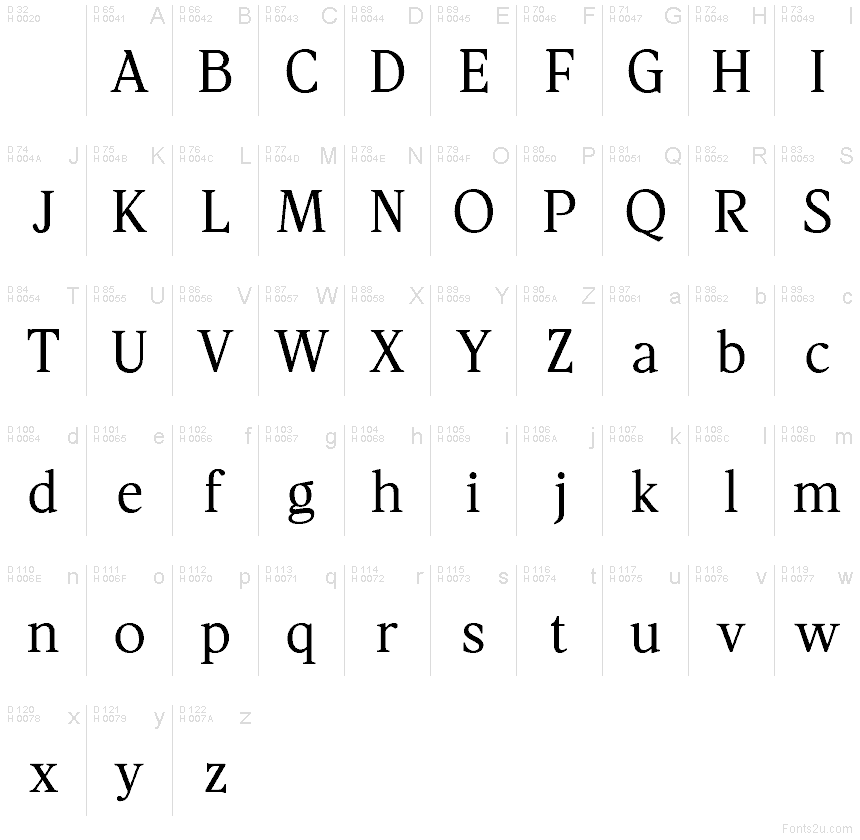
CS Majora Regular Demo
CS Majora font by Craft Supply Co. is a free classic serif font with an elegant and sophisticated design. Borrowing beauty from typography styles of previous decades, it still features a modern feel that makes it relevant today. Created to be comfortable to read and nice to look at, the font presents thin corners but overall balanced letterform strokes.